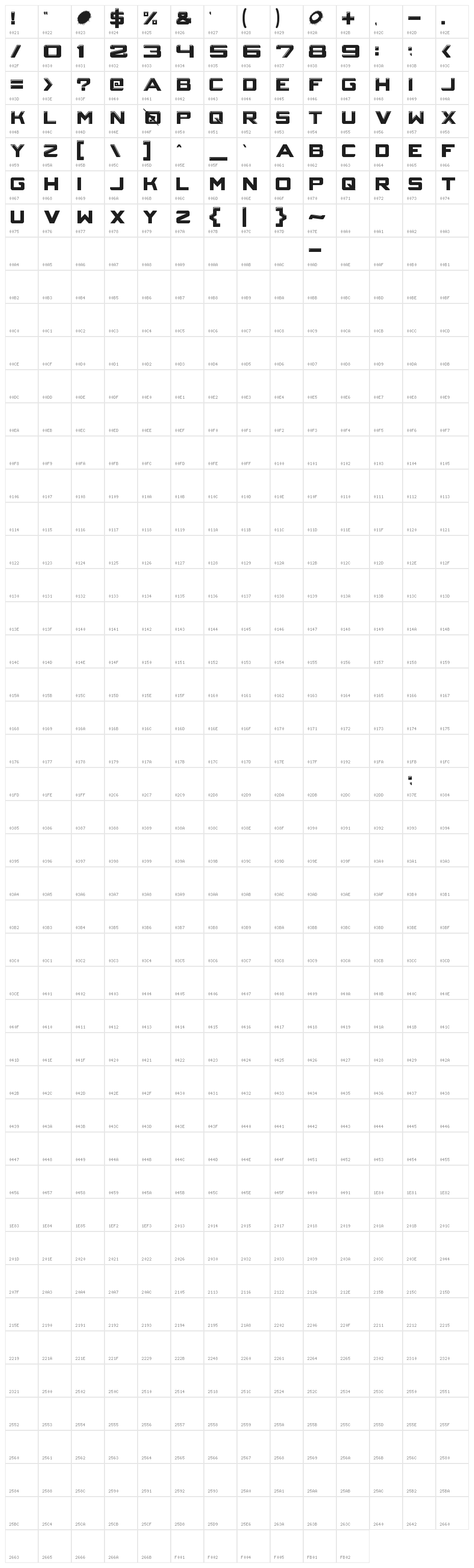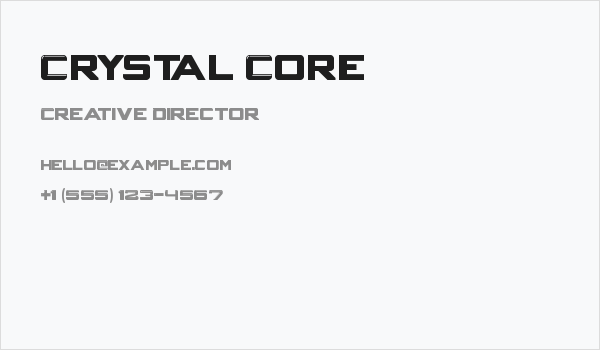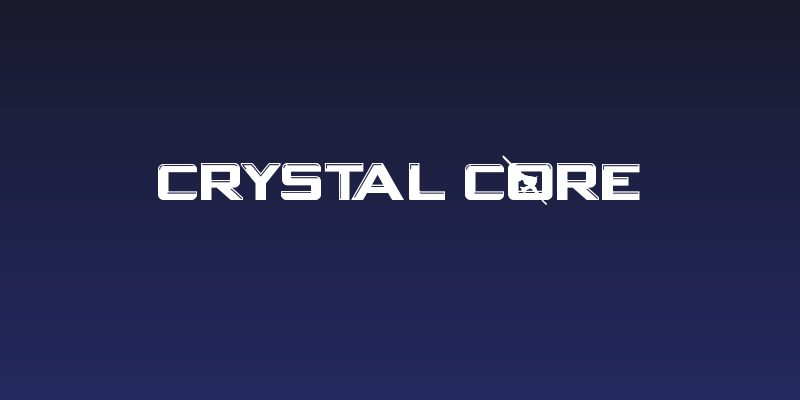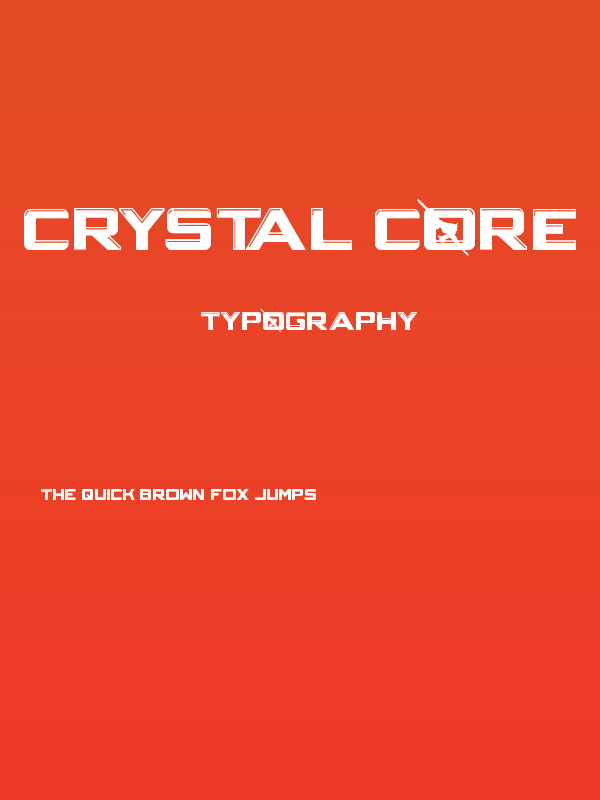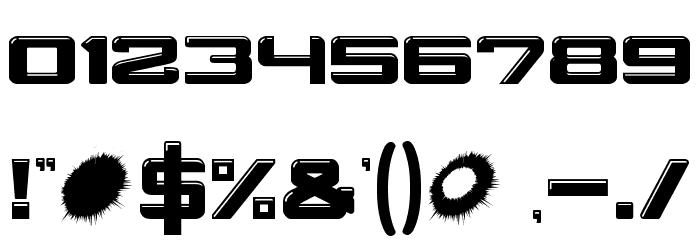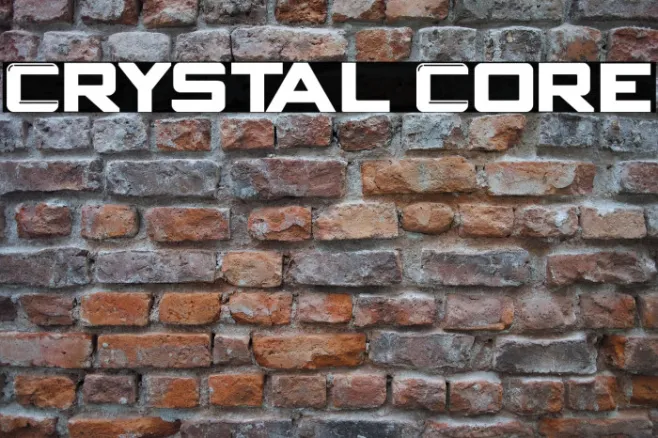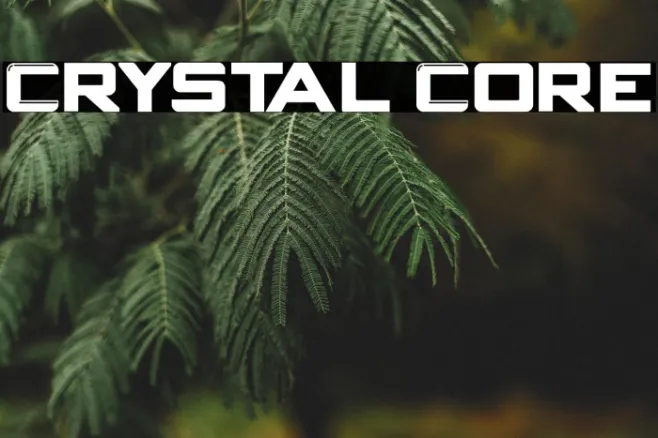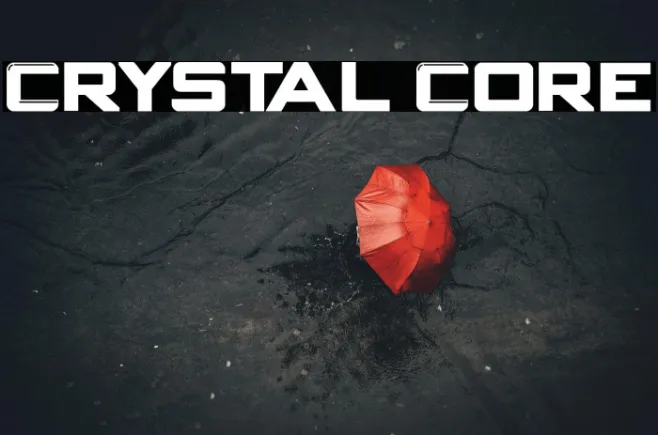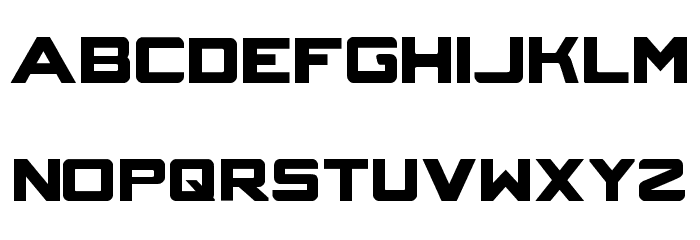
Crystal Core Font
Crystal Core Description
This font features a futuristic and bold design with a strong geometric structure. The characters are crafted with sharp angles and a distinct, industrial feel, making it ideal for projects that require a modern and edgy aesthetic. The uppercase letters are particularly striking, with a unique cut-out effect that adds depth and dimension. The numbers and special characters maintain the same boldness, ensuring consistency across all text elements. This font is perfect for creating impactful headlines, logos, and branding materials that demand attention.
CRYSTAL-CORE UPPERCASE
CRYSTAL-CORE LOWERCASE
CRYSTAL-CORE OTHER CHARS
| Proposed Projects | Ideal for sci-fi themed designs, tech branding, video game titles, and modern advertising. |